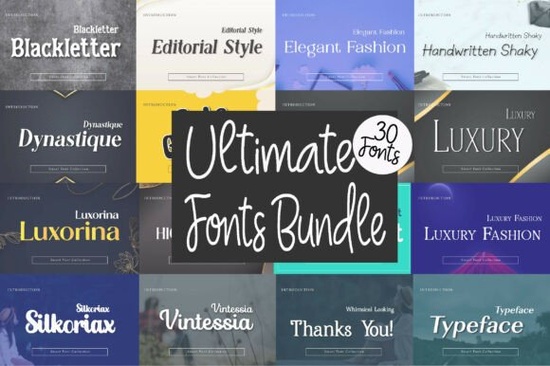
If you're a designer, small business owner, or print-on-demand seller looking for a reliable, high-quality font collection that covers nearly every creative need, the Unlimited Mega Bundle Font is worth your attention. This isn’t just another bundle it’s a thoughtfully assembled set of 30 modern, versatile typefaces that balance elegance with practicality. Whether you’re crafting a luxury brand identity, designing social media graphics, or creating product labels, these fonts offer clean lines, strong readability, and distinctive character without overwhelming your workflow.
Why would I need 30 fonts in one bundle?
Having too few fonts can limit your creativity, but having too many unrelated ones can slow you down. The Unlimited Mega Bundle solves this by offering a cohesive yet diverse selection each font complements the others while serving different purposes. You’ll find everything from sleek sans-serifs perfect for minimalist packaging to expressive serifs ideal for editorial layouts or boutique branding.
What kinds of projects work best with this bundle?
This bundle shines across a wide range of uses:
- Branding & logos: Clean, professional fonts help establish trust and recognition.
- Social media graphics: Eye-catching headlines and readable captions keep your audience engaged.
- Product packaging: Distinctive letterforms make your items stand out on shelves or online.
- Print-on-demand merchandise: From mugs to t-shirts, these fonts scale well and retain clarity.
- Digital invitations or greeting cards: Elegant scripts and balanced serifs add personality without sacrificing legibility.
Many of the included typefaces also support multiple languages and include alternate characters, ligatures, or stylistic sets features that give your designs subtle polish without extra effort.
How does this compare to other font bundles?
Unlike some collections that throw together random fonts with inconsistent quality, the Unlimited Mega Bundle focuses on cohesion and craftsmanship. Each typeface has been reviewed for spacing, kerning, and visual harmony. That means less time troubleshooting technical issues and more time designing.
You’ll also find overlap in style families some fonts come in multiple weights (light, regular, bold), making it easier to create hierarchy within a single project. And because the bundle leans into both contemporary and timeless aesthetics, it avoids trendy gimmicks that quickly look dated.
One note: while the bundle is comprehensive, it’s not meant to replace niche display fonts for ultra-specific themes (think horror movie posters or retro arcade signs). But for 90% of everyday design needs from business cards to Instagram stories it delivers consistent, professional results.
Getting started without feeling overwhelmed
With 30 fonts at your fingertips, it’s easy to overthink choices. Start by narrowing your focus:
- Pick 2–3 fonts that match your project’s mood (e.g., modern, warm, authoritative).
- Test them at actual size what looks great as a headline might fail as body text.
- Pair a decorative font with a simple sans-serif for contrast and balance.
Remember: great typography often lies in restraint. You rarely need more than two fonts per project.